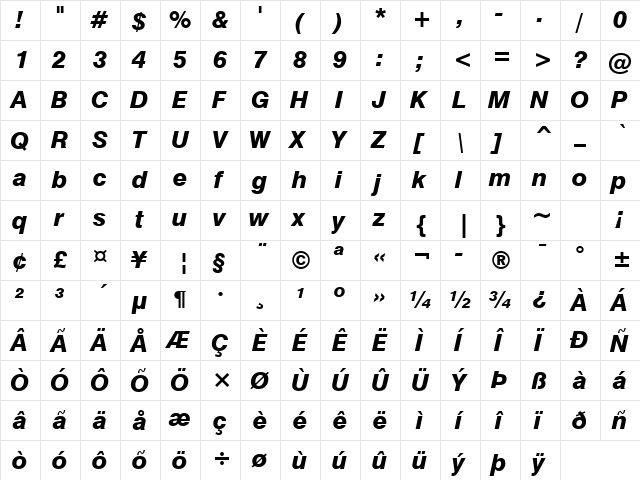
Swis721 Hv BT Heavy Italic Font Preview
Swis721 Hv BT Heavy Italic
Design Context for Swis721 Hv BT Typeface
Swis721 Hv BT is a composed and adaptable typeface that performs quietly and consistently across a wide range of design contexts. The dynamic lean of this cut emphasises speed and emphasis in any layout.
Pro Tip: Use Swis721 Hv BT for emphasis, pull quotes, and subheadings where its slanted energy can add rhythm to the layout.